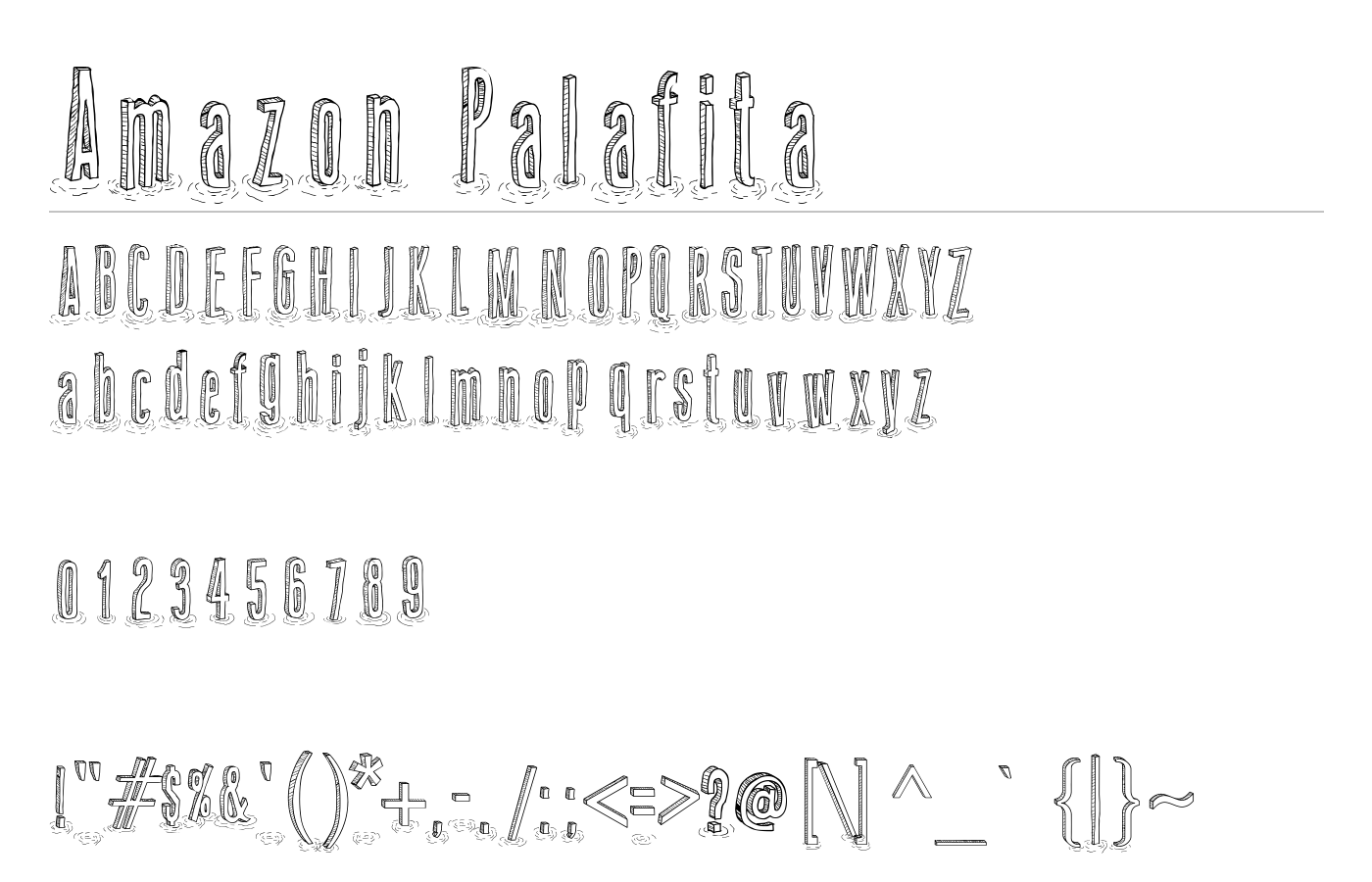
Amazon Palafita is a playful and distinctive sans serif font with a narrow, tall structure and a hand-drawn, sketch-like texture that adds character and a whimsical touch. Its outlined, irregular strokes and subtle shading give it a casual, artistic vibe, making it ideal for creative projects, fun branding, posters, and anything that benefits from a quirky, informal style. This font works best in headlines and display uses where its unique personality can truly stand out.
Amazon Palafita Font
About Amazon Palafita Font
| Font family | Amazon Palafita Font |